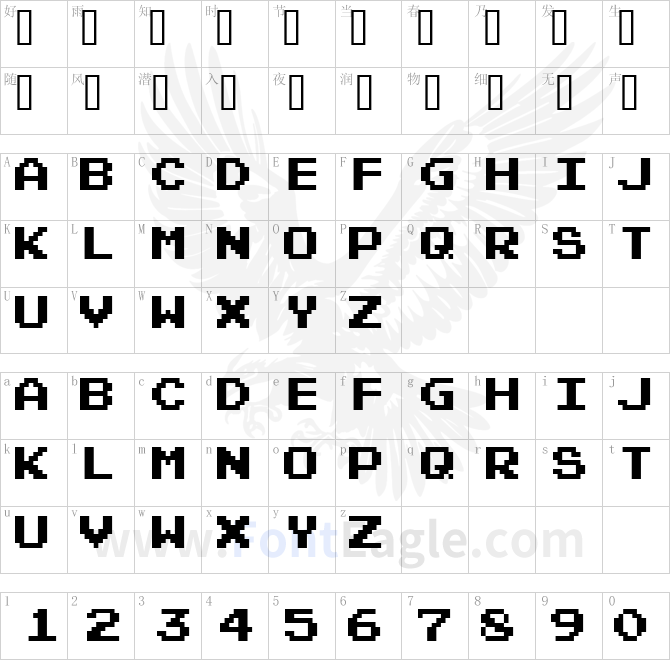
- Font name:Emulator
- Font Subfamily ID:FontMonger:Emulator Normal
- Font Full Name:Emulator Normal
- Postscript:EmulatorNormal
- Font Copyright:(c)2000 Neale Davidson